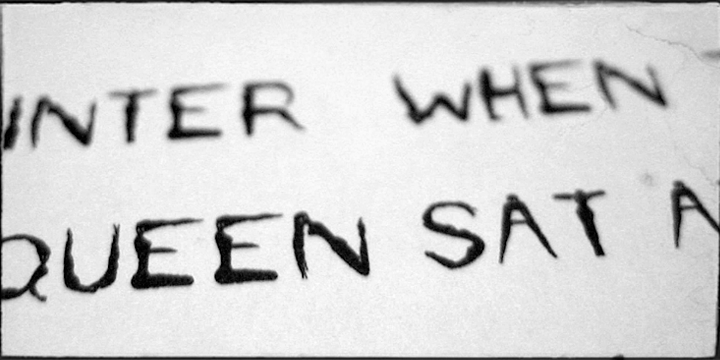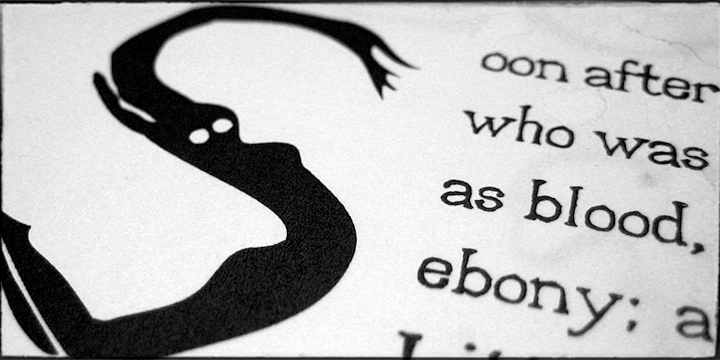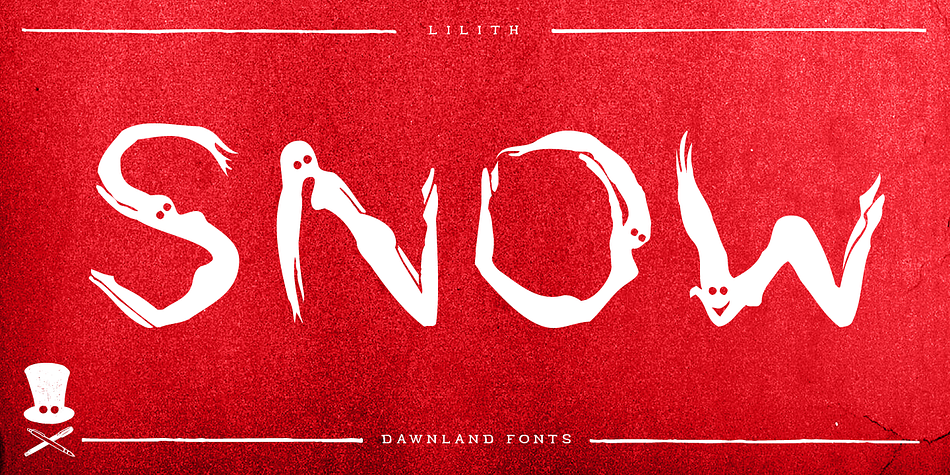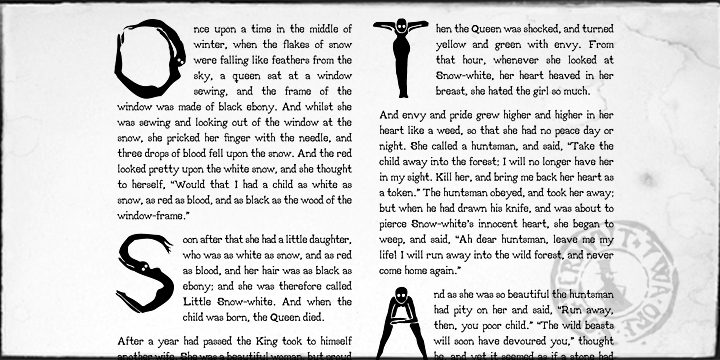
Lilith X is a novelty font published by Dawnland.
Hand drawn shadow entities from the dark corners of Dawnland.
Lilith X is ideal for:
Initial characters - give your text a unparalleled facelift!
Headlines - create a unique look for your posters, event graphics, book covers & music/media/game packaging.
Preamble - reanimate the introduction…
The main focus and usage of Lilith X are initial characters or headlines for posters, event graphics and music/media/game packaging. The bread text on the gallery images is written in Aeterna.
Lilith X contain uppercase and small caps letters A-Z + swedish characters Å Ä Ö.